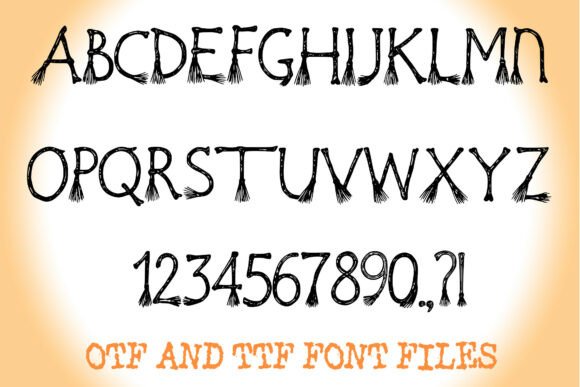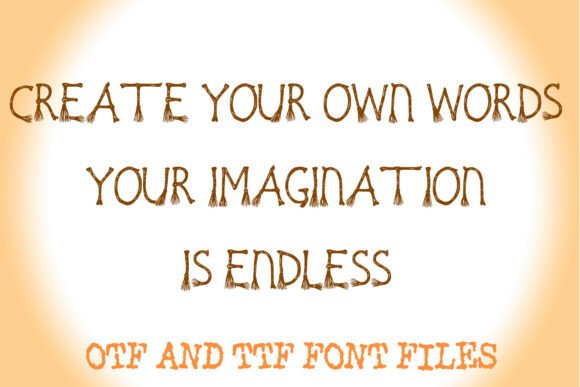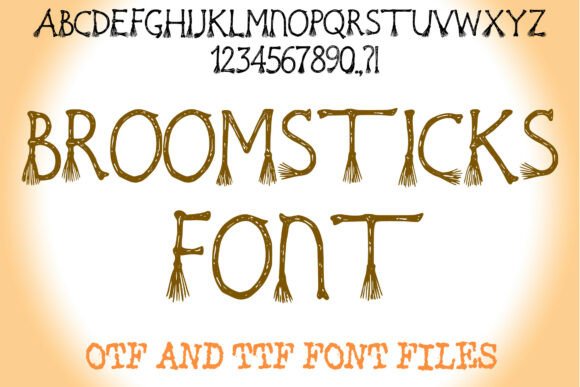
Broomsticks Font: A Spooky Witch Style Font for Your Halloween Projects
Are you looking for a font that will add a touch of spooky magic to your Halloween projects? Look no further than the Broomsticks Font, a quirky and versatile font that’s perfect for designers and crafters. In this article, we’ll take a closer look at the Broomsticks Halloween Lettering ABC Text Font Alphabet OTF and explore its features, uses, and benefits.
What is Broomsticks Font?
Broomsticks Font is a unique and eye-catching font that’s inspired by the spooky and mystical world of witches and Halloween. This font features a distinctive, hand-drawn style that’s reminiscent of old-fashioned witchcraft and magic. With its irregular shapes and quirky flourishes, Broomsticks Font is sure to add a touch of personality and whimsy to any project.
Key Features of Broomsticks Font
So, what makes Broomsticks Font so special? Here are some of its key features:
- Unique and quirky design: Broomsticks Font features a one-of-a-kind design that’s sure to stand out from the crowd.
- Spooky witch style: This font is perfect for Halloween and witch-themed projects, with a style that’s reminiscent of old-fashioned witchcraft and magic.
- Hand-drawn: Broomsticks Font features a hand-drawn design that’s full of character and personality.
- Versatile: This font can be used in a wide range of contexts, from digital projects to print materials.
Uses for Broomsticks Font
So, what can you use Broomsticks Font for? The possibilities are endless! Here are some ideas to get you started:
- Halloween projects: Broomsticks Font is perfect for Halloween-themed projects, such as invitations, posters, and social media graphics.
- Witch-themed projects: This font is also great for witch-themed projects, such as book covers, packaging, and branding.
- Digital projects: Broomsticks Font can be used in digital projects, such as video titles, animations, and video games.
- Print materials: This font can also be used in print materials, such as flyers, brochures, and business cards.
Benefits of Using Broomsticks Font
So, why should you choose Broomsticks Font for your projects? Here are some benefits:
- Adds a touch of personality: Broomsticks Font adds a unique and quirky touch to any project, making it stand out from the crowd.
- Creates a spooky atmosphere: This font is perfect for creating a spooky and mystical atmosphere in your projects.
- Easy to use: Broomsticks Font is easy to install and use, making it a great choice for designers and crafters of all levels.
- Versatile: This font can be used in a wide range of contexts, making it a great addition to any design library.
Tips for Using Broomsticks Font
Here are some tips for getting the most out of Broomsticks Font:
- Experiment with colors: Broomsticks Font looks great in a variety of colors, so don’t be afraid to experiment and find the perfect hue for your project.
- Use it with other fonts: This font pairs well with other fonts, so try combining it with other styles to create a unique look.
- Pay attention to spacing: Broomsticks Font has a distinctive style, so make sure to pay attention to spacing and kerning to ensure it looks its best.
In conclusion, Broomsticks Font is a unique and versatile font that’s perfect for designers and crafters looking to add a touch of spooky magic to their projects. With its quirky design, spooky witch style, and hand-drawn feel, this font is sure to stand out from the crowd. Whether you’re working on a Halloween project, a witch-themed design, or simply looking for a font that adds a touch of personality, Broomsticks Font is a great choice.
So why not give Broomsticks Font a try? With its ease of use, versatility, and unique style, it’s sure to become a favorite in your design library.